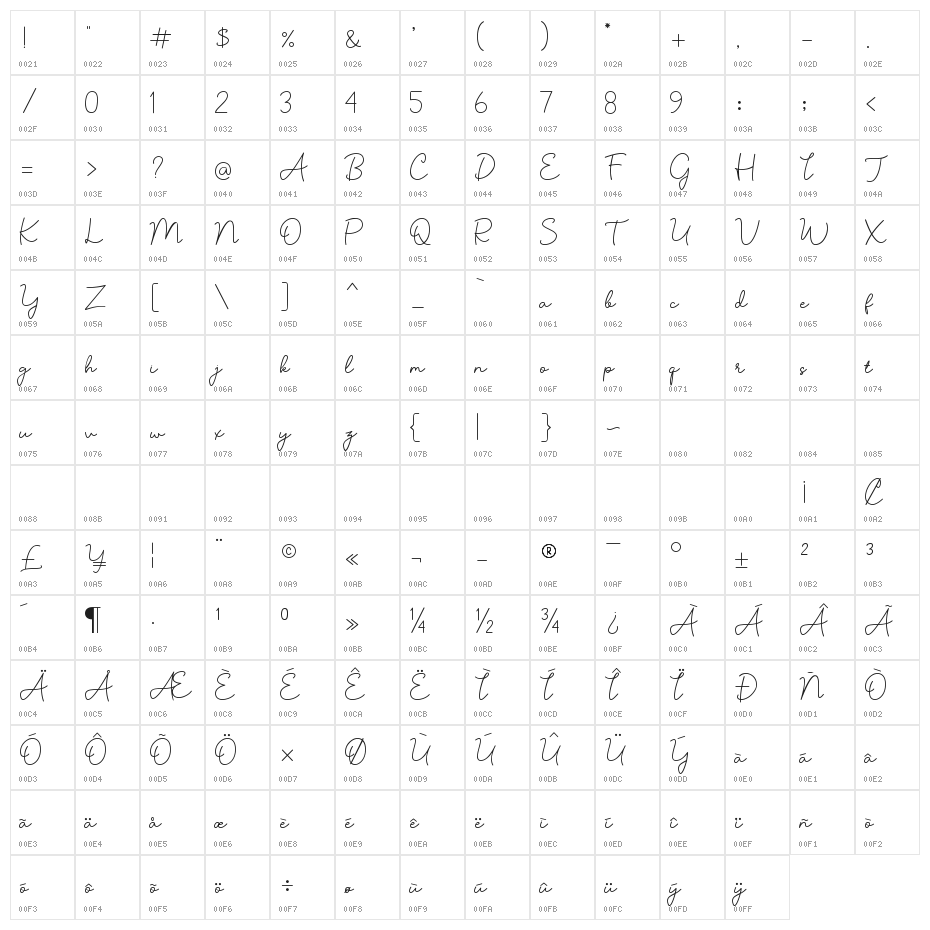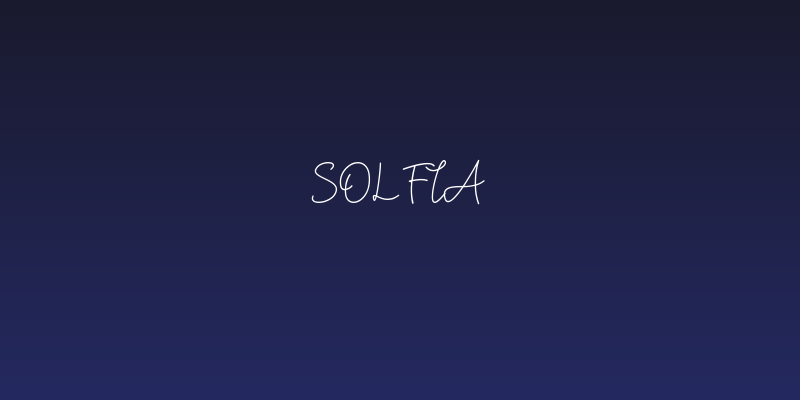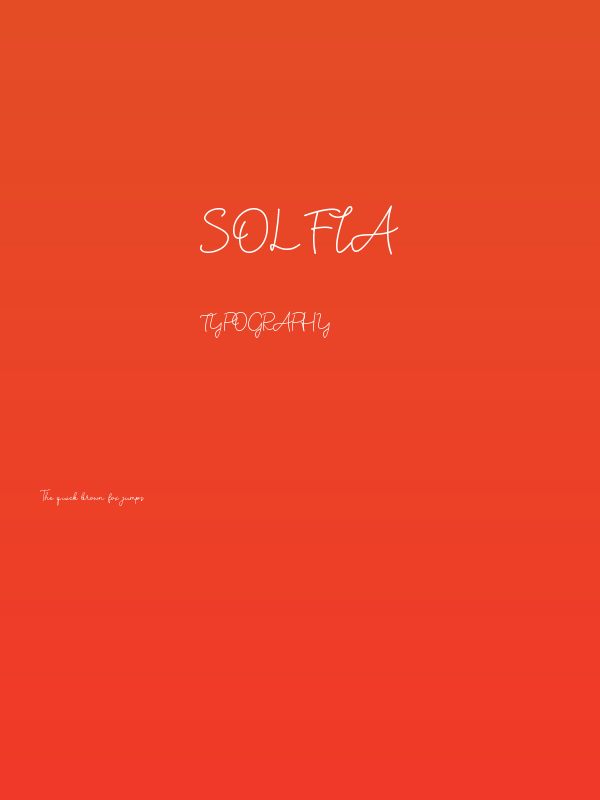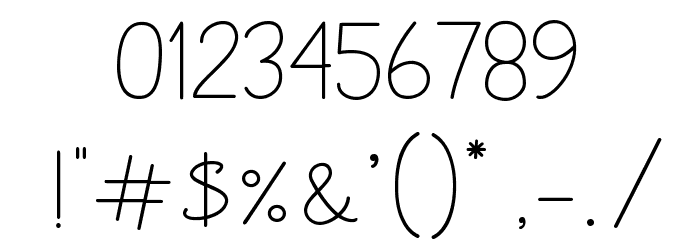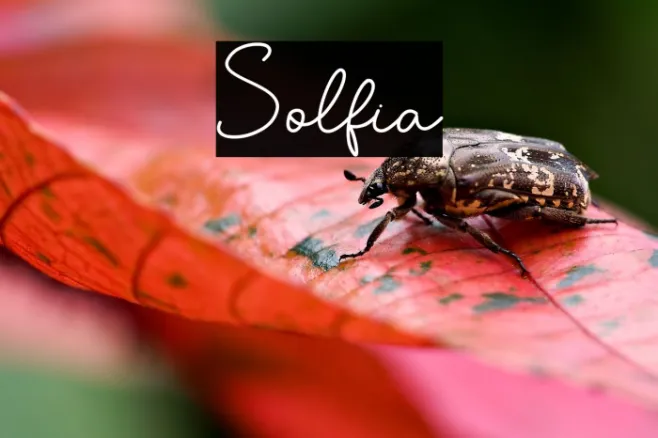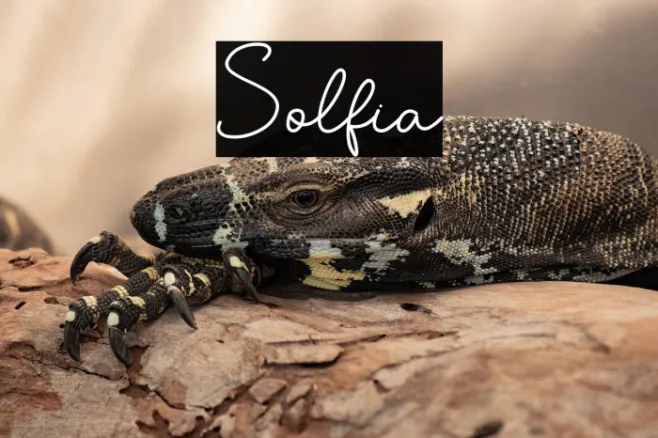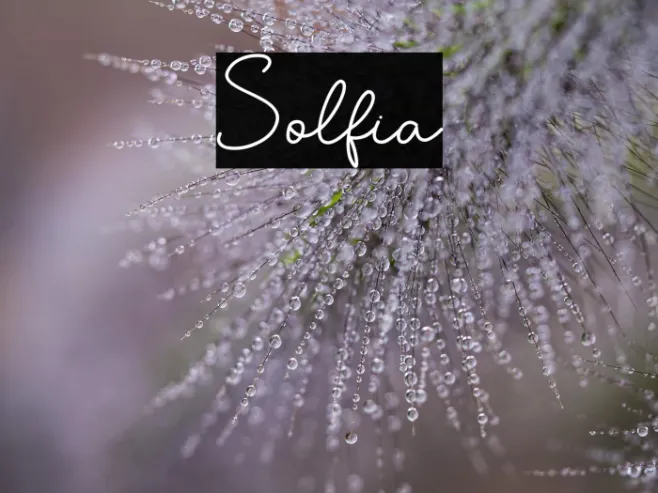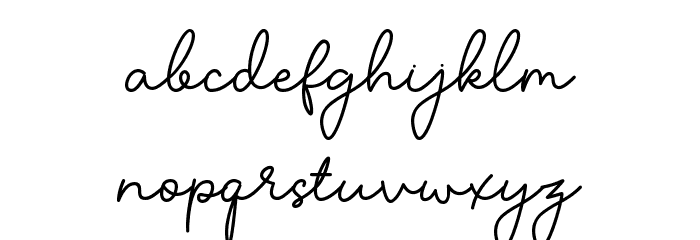
Solfia Font
Solfia Description
This elegant script font features smooth, flowing lines that mimic the natural movement of handwriting. The uppercase letters are slightly more elaborate, with graceful loops and curves, while the lowercase letters maintain a consistent, fluid style. The numerals are clear and easy to read, complementing the overall design. Special characters are thoughtfully integrated, maintaining the font's cohesive appearance. The font's delicate strokes and balanced proportions make it suitable for a variety of applications where a touch of sophistication and personal flair is desired.